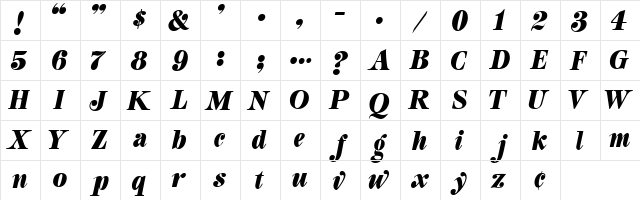
4 Phoenix DNA Regular
Design Context for 4 Phoenix DNA Typeface
4 Phoenix DNA offers clean, dependable letterforms without strong stylistic allegiance, making it a practical choice for designers who need flexibility.